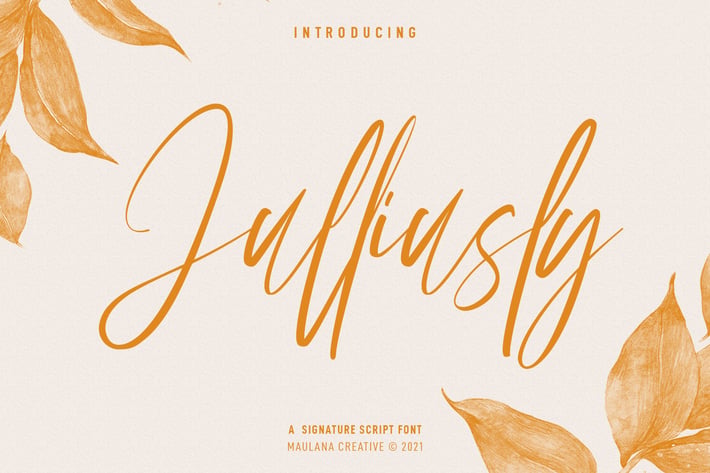
Julliusly Signature Font
Julliusly is a fancy signature script font. With high contrast light stroke, fun character with a bit of ligatures. To give you an extra creative work. Julliusly font support multilingual more than 100+ language. This font is good for logo design, Social media, Movie Titles, Books Titles, a short text even a long text letter and good for your secondary text font with sans or serif. Make a stunning work with Julliusly font.